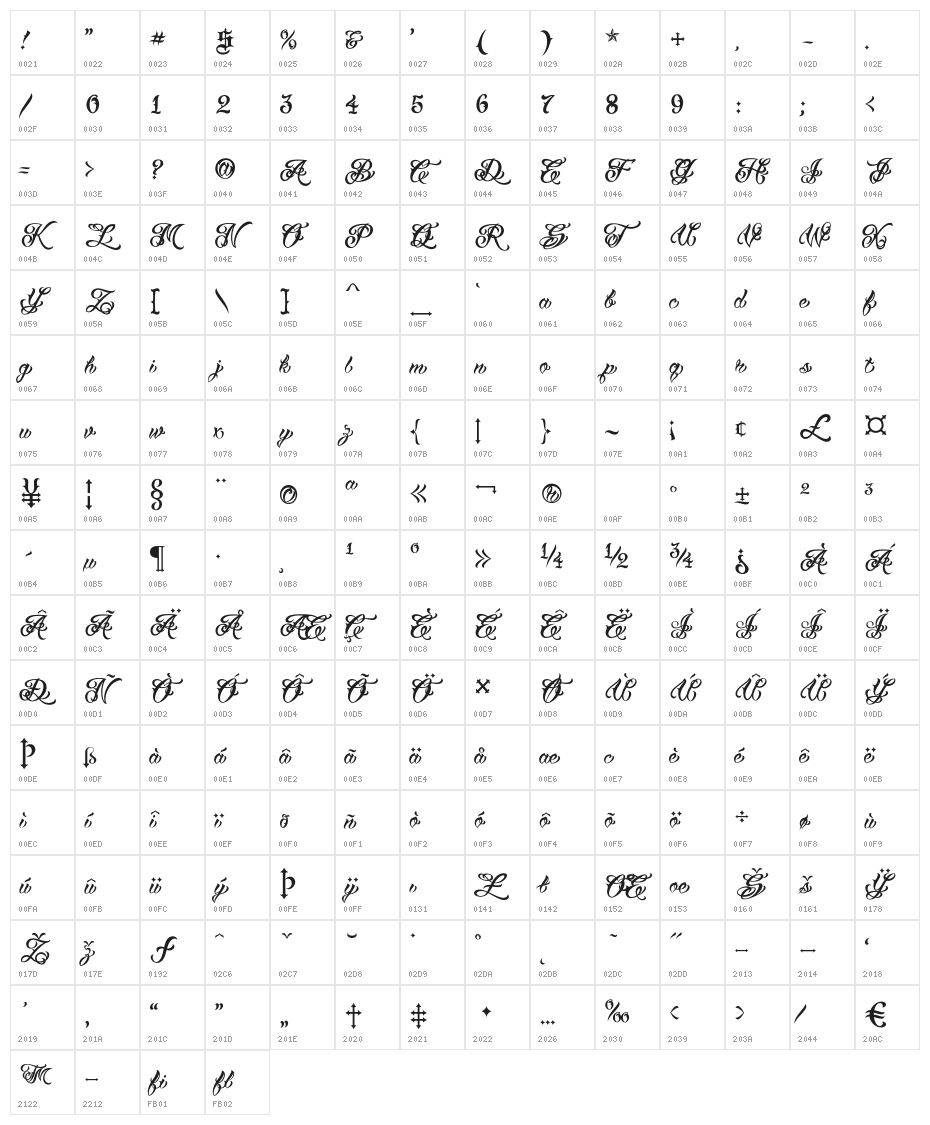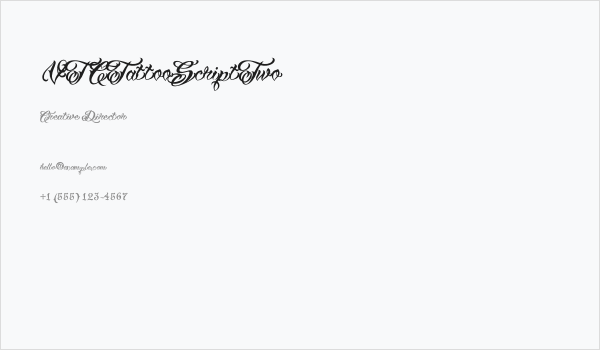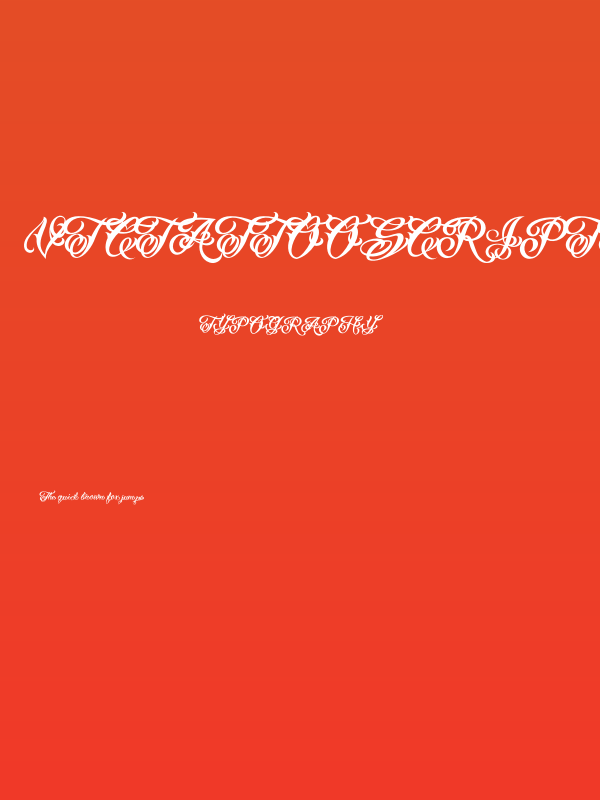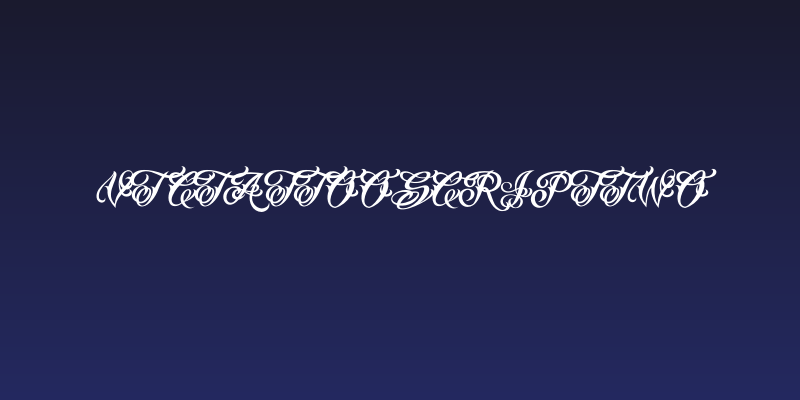
VTCTattooScriptTwo Font
VTCTattooScriptTwo Description
This font features an elaborate and intricate script style, characterized by its flowing, interconnected letters that mimic the fluidity of handwriting. The uppercase letters are particularly ornate, with loops and swirls that add a decorative flair. The lowercase letters maintain a consistent style, though slightly less embellished, ensuring readability while preserving the artistic nature of the font. Numbers and special characters are designed with the same attention to detail, making them cohesive with the alphabetic characters. This font is ideal for projects that require a touch of elegance and sophistication, such as invitations, branding, and decorative signage.
| Use Case | Logos, Invitations, Decorative text |
| Proposed Projects | Ideal for wedding invitations, branding, decorative signage, and artistic projects. |